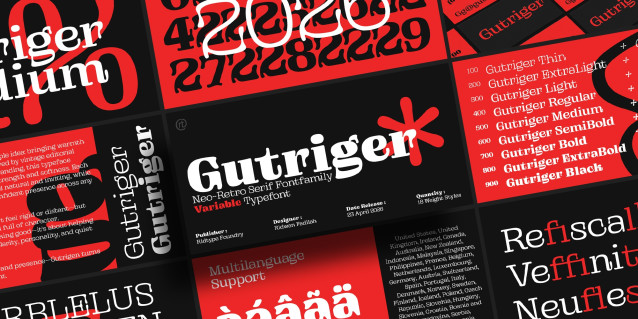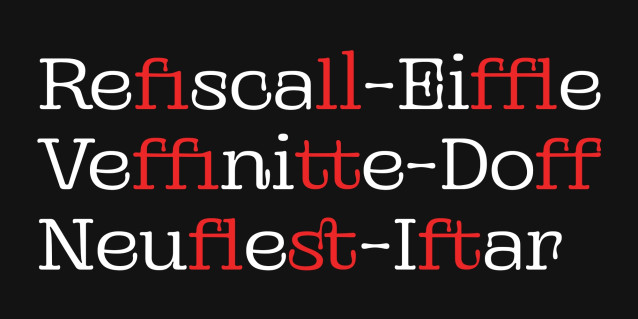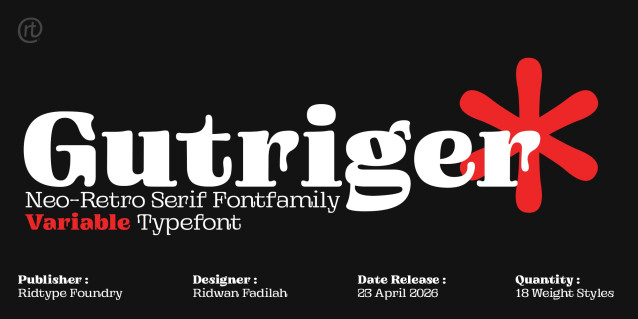
Gutriger Font
Gutriger Font was created from a simple idea: bringing warmth back into bold typography. Inspired by vintage editorial styles yet refined for modern branding, this typeface explores the balance between strength and softness.Each curve is carefully shaped to feel natural and inviting, while its bold structure ensures a confident presence across any design. The result is a serif that doesn’t feel rigid or distant—but approachable, expressive, and full of character.Gutriger is not just about looking good—it’s about helping brands communicate with clarity, personality, and quiet confidence.
Designed to elevate your brand presence—Gutriger turns every word into a statement.